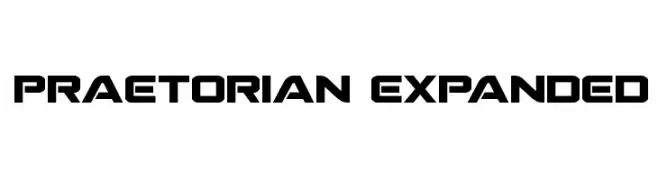
A bold, expanded, and italic font with a modern and dynamic style.
A bold, italicized font with a modern, dynamic style.
A bold, condensed font with a geometric and modern style.
A bold, italicized, and condensed font with a modern, dynamic style.
A bold, geometric font with a modern, futuristic style and expanded width.
A bold, expanded italic font with a modern and dynamic style.
A bold, italic font with a gradient effect, offering a dynamic and futuristic style.
A bold, futuristic font with a gradient effect created by horizontal lines.
A bold, italic font with a futuristic and dynamic style.
A bold, italic, futuristic font with sharp angles and a dynamic style.